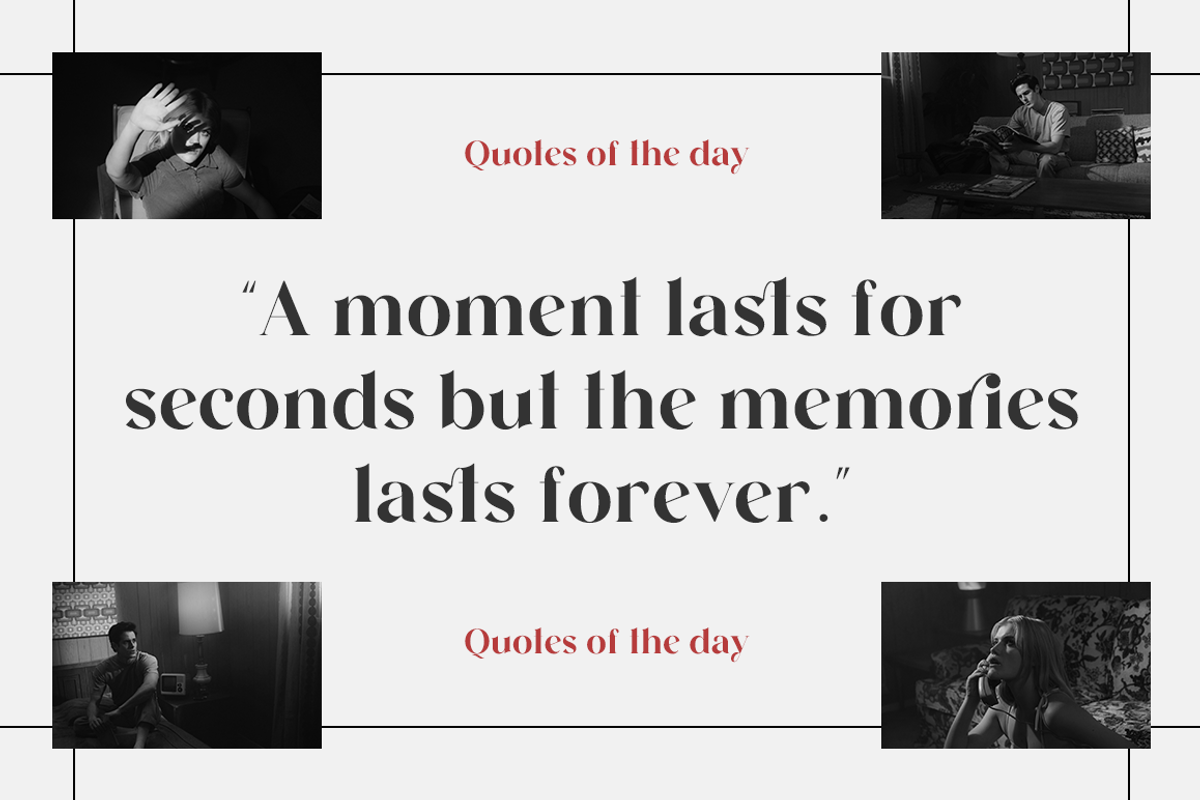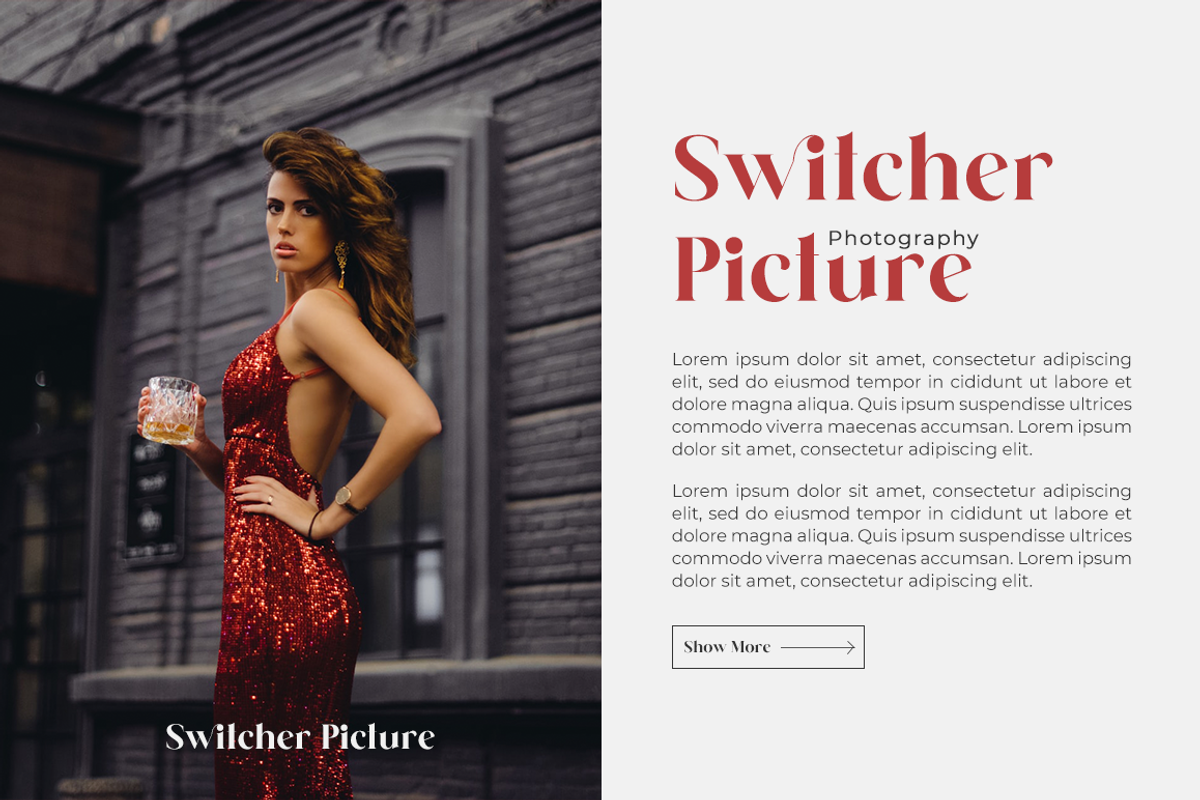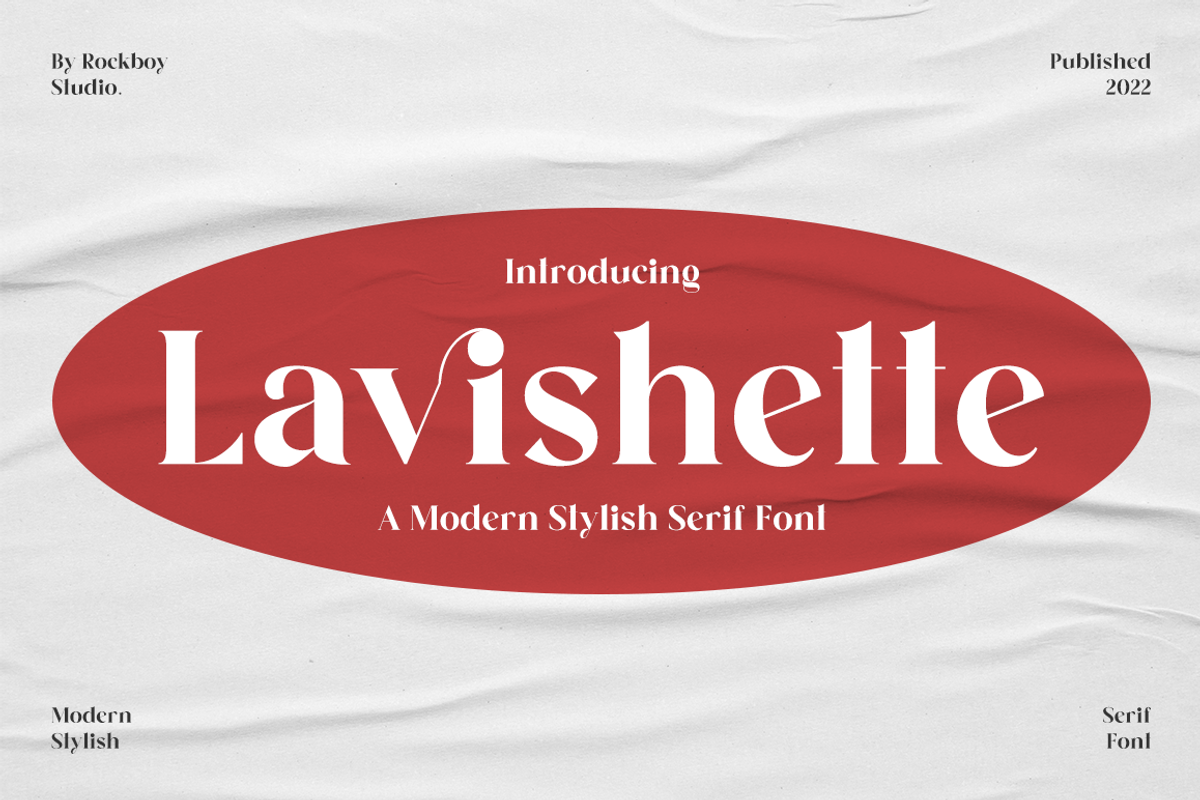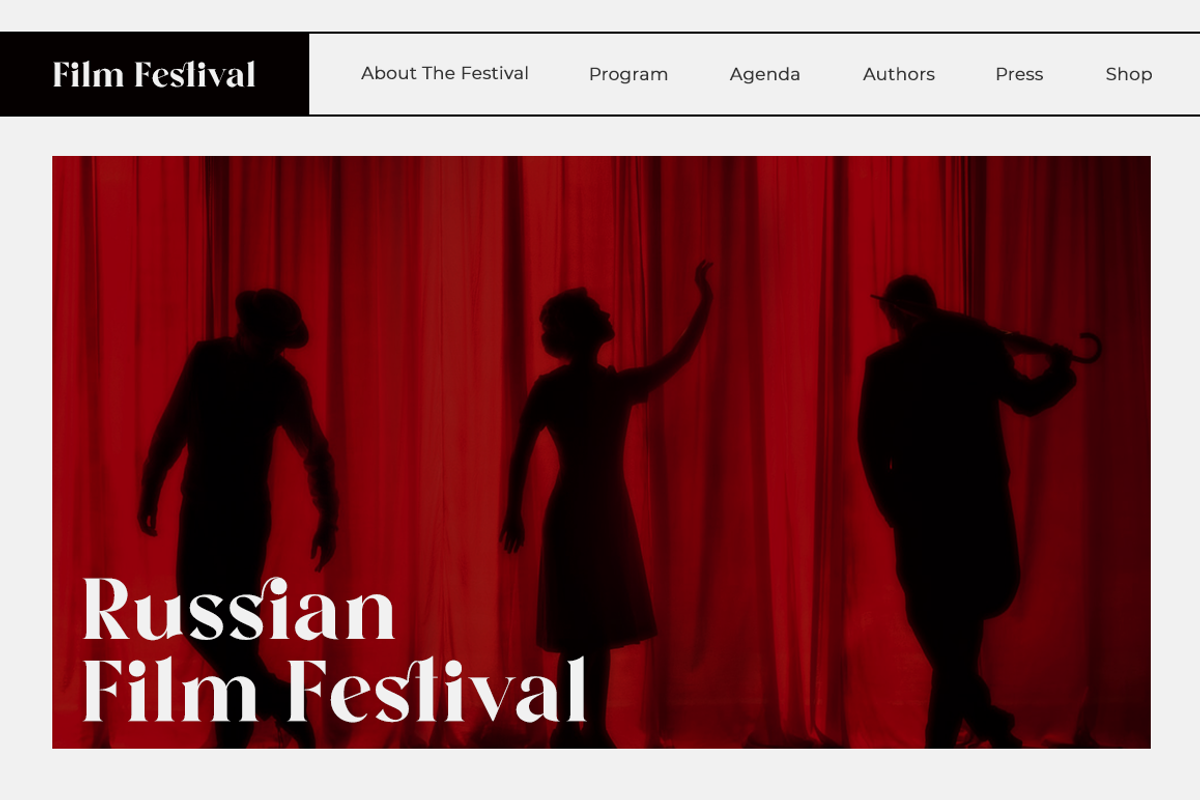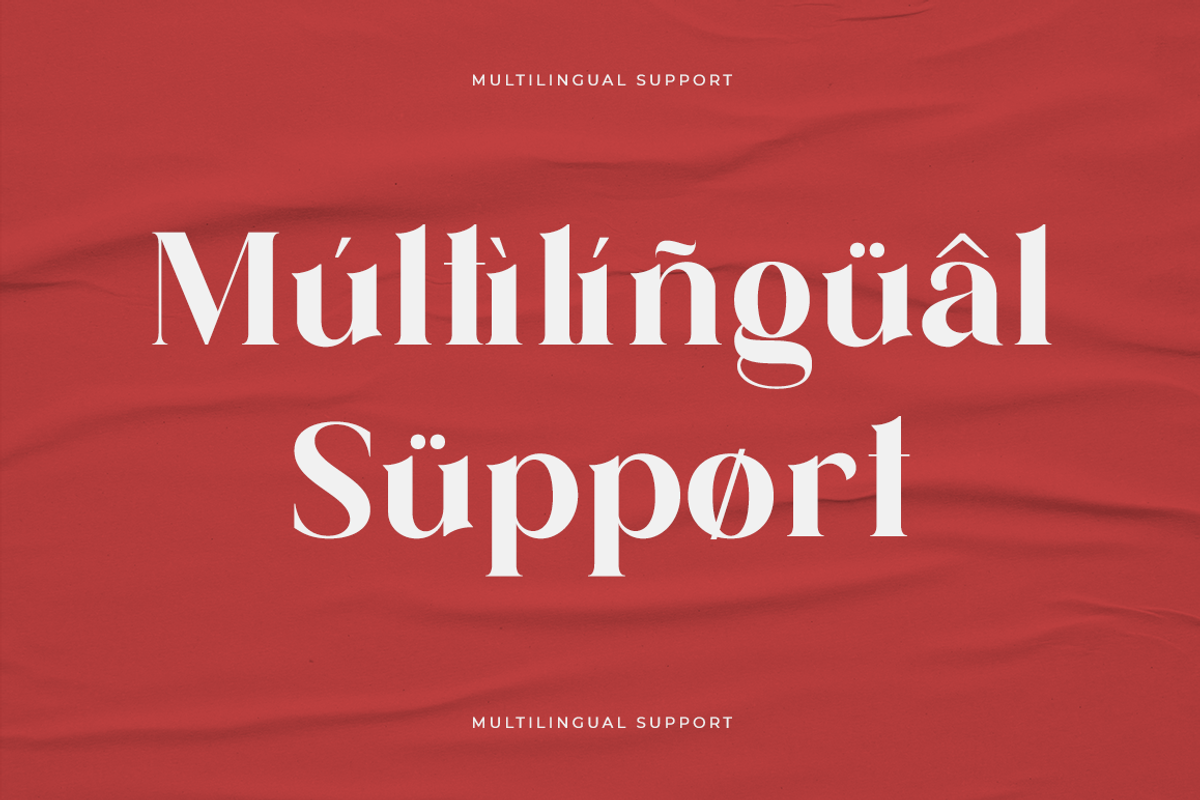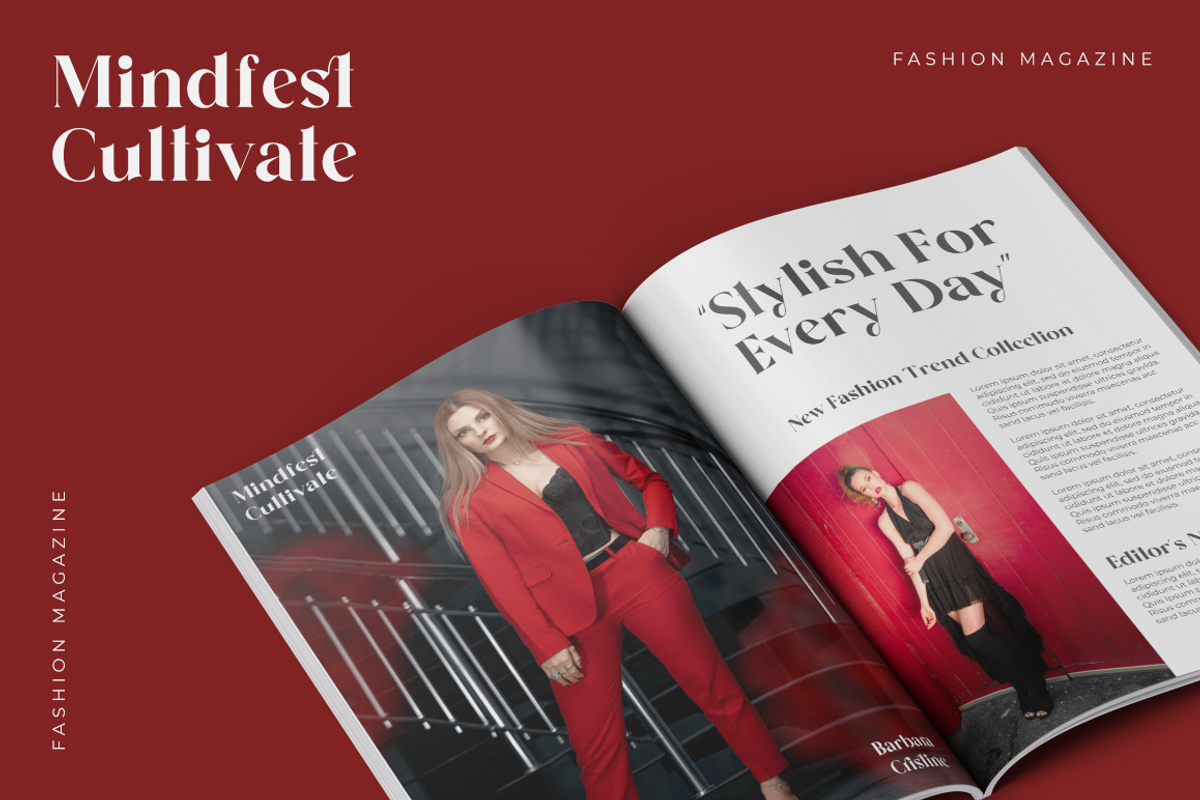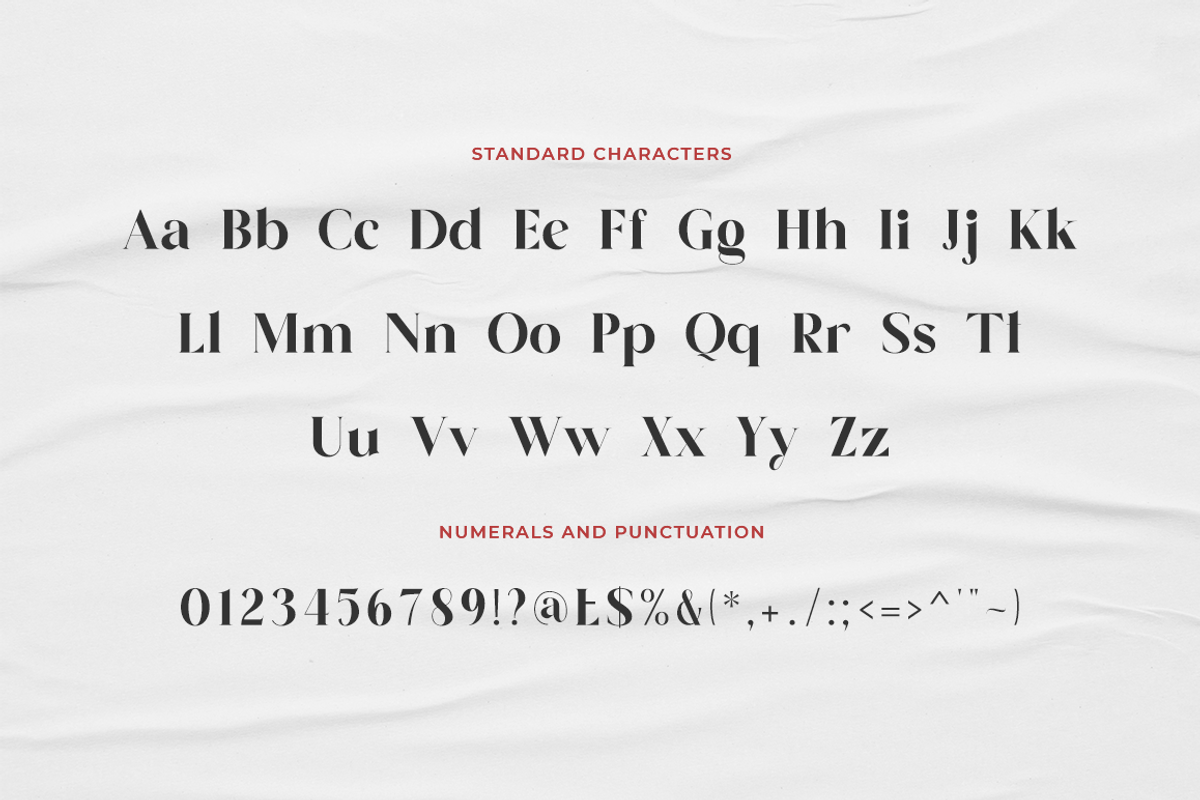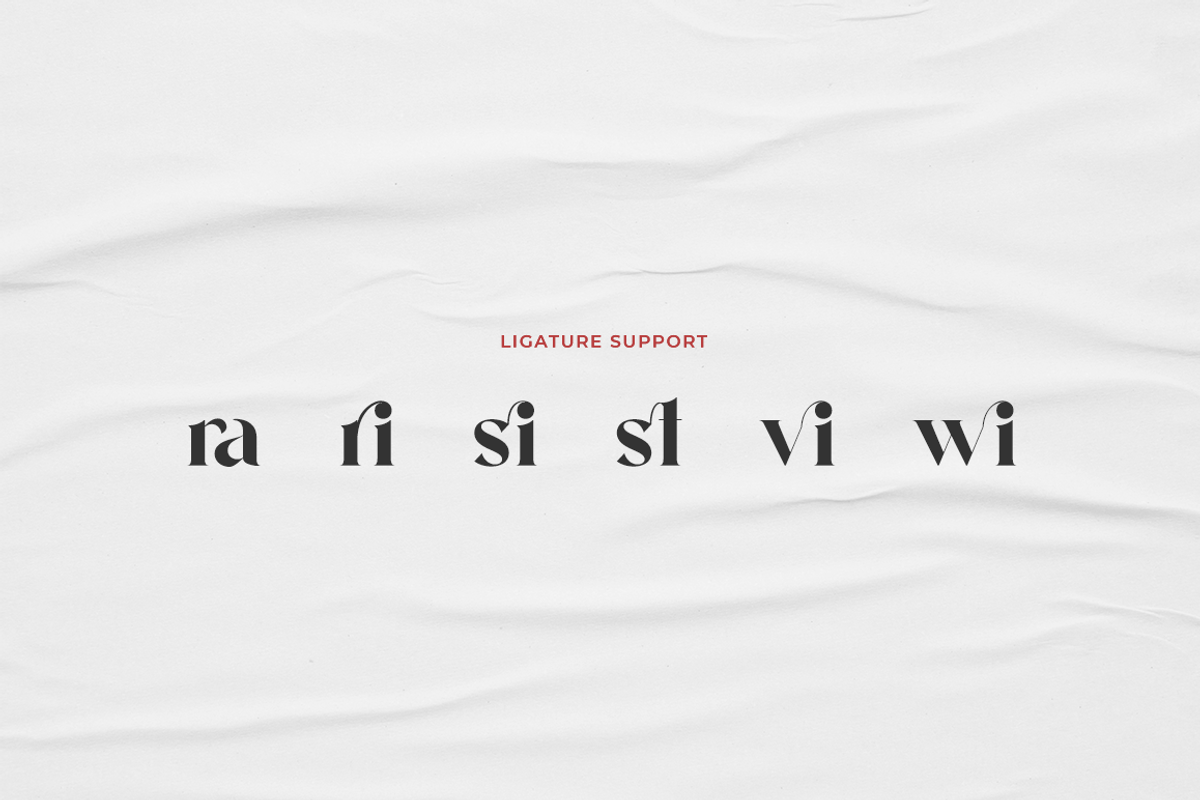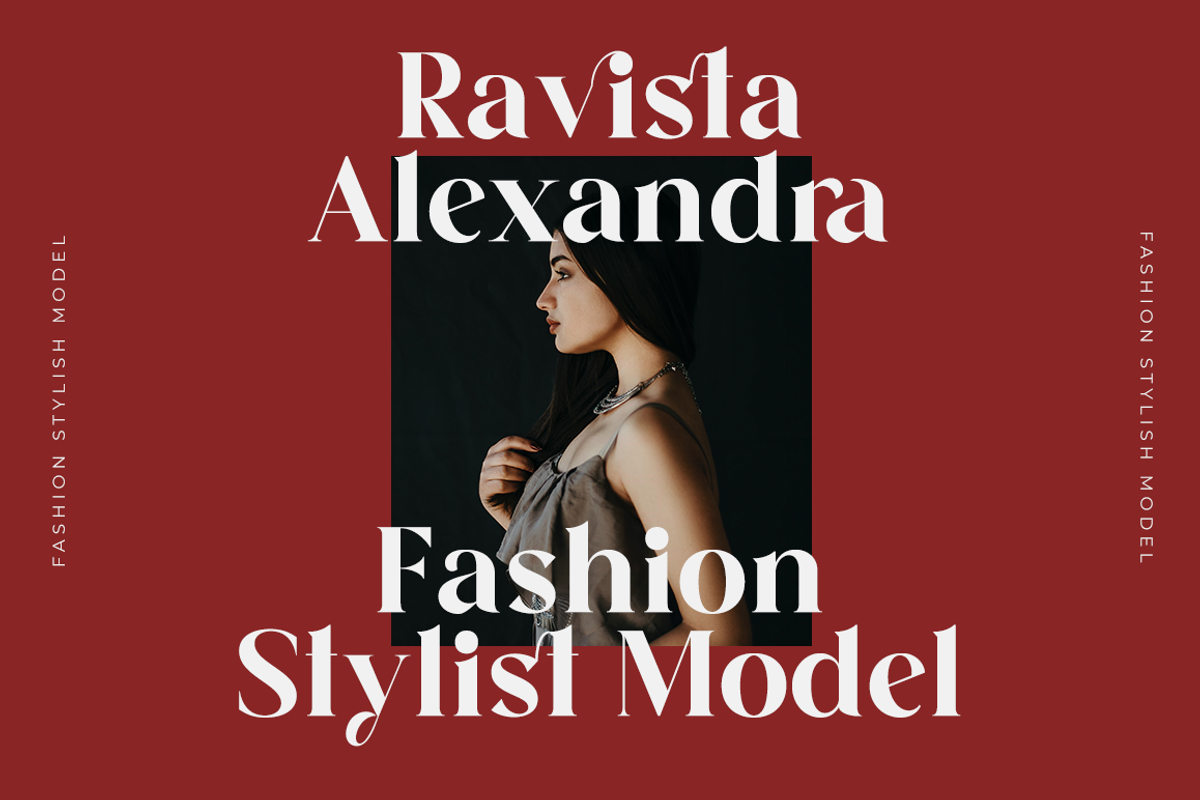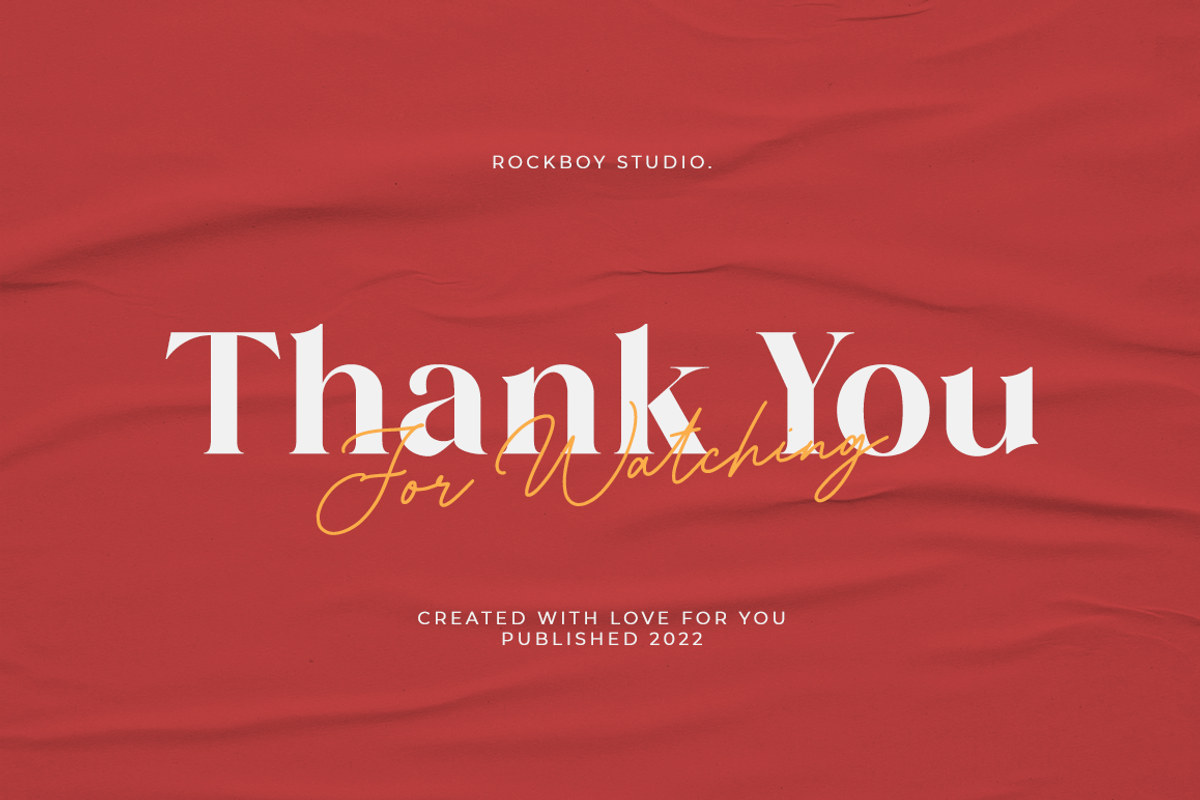
Lavishette - Modern Stylish
Lavishette is an elegant, thin lettered and distinct serif font. Suitable to a wide variety of designs due to its neat and clean style, this font has the potential to become your favorite go-to font, no matter the occasion!